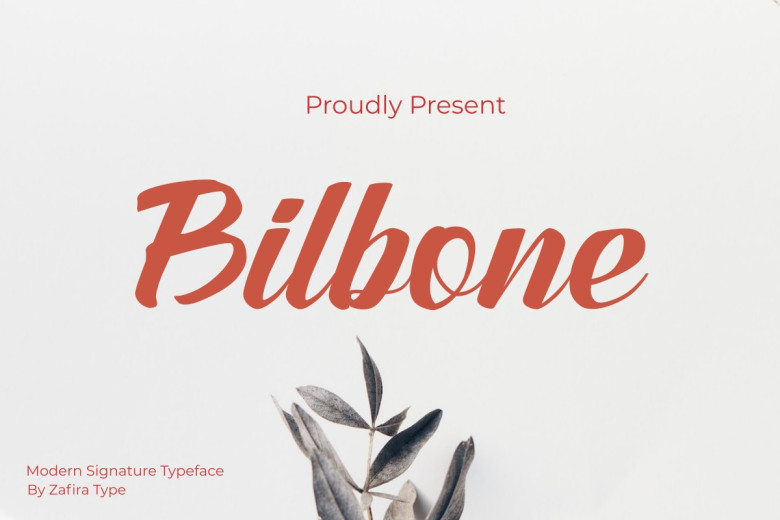
Bilbone Font
Bilbone Script is a hand-written script font with an elegant yet bold style, making any design stand out. Perfect for packaging designs, branding, print designs, T-shirt design projects and food design projects among other tasks.
Bilbone Handwritten Script Font